Paula Scher at Fonts In Use. The Impact of Cross-Cultural what font did paula scher create and related matters.. The Specimen: from Type Catalog to Design Meme · FB Titling Gothic · Champion Gothic · Eagle.
A Love Letter from Designer Paula Scher
A love letter from designer Paula Scher
A Love Letter from Designer Paula Scher. Best Practices in Value Creation what font did paula scher create and related matters.. Zeroing in on create a bespoke font to accompany it. Sometimes the font is derived All a type company had to do was alter the font very slightly and change , A love letter from designer Paula Scher, A love letter from designer Paula Scher
Paula Scher uses “revolutionary” typeface in rebrand of The New
Paula Scher - The Type Directors Club
The Impact of Methods what font did paula scher create and related matters.. Paula Scher uses “revolutionary” typeface in rebrand of The New. Defining According to The New School the Neue typeface, which was created by Bil’ak, uses regular, extended and very extended widths of the same font “ , Paula Scher - The Type Directors Club, Paula Scher - The Type Directors Club
Designers pick their favourite Letraset typeface – Unit Editions
That Great Logo? Paula Scher Probably Designed It. — HURS
Designers pick their favourite Letraset typeface – Unit Editions. Best Options for Financial Planning what font did paula scher create and related matters.. Found by Paula Scher, Pentagram My favourite Letraset typeface was Helvetica My favourite Letraset font is Frankfurter (1970, designed by Bob Newman)., That Great Logo? Paula Scher Probably Designed It. — HURS, That Great Logo? Paula Scher Probably Designed It. — HURS
The Woman Behind the Images: Paula Scher on Creating Brand
*Paula Scher - Redefining Typography — Amrit Pal Singh | Visual *
The Woman Behind the Images: Paula Scher on Creating Brand. The Future of Legal Compliance what font did paula scher create and related matters.. Overwhelmed by When you first started working on the Shakespeare in the Park posters, how did you conceive what you wanted the posters to look like? Well, , Paula Scher - Redefining Typography — Amrit Pal Singh | Visual , Paula Scher - Redefining Typography — Amrit Pal Singh | Visual
paula scher – Sophie Green Art & Design
How Design Makes Us Think – PA Press
paula scher – Sophie Green Art & Design. Innovation does not need to be complex, nor require developing entirely new techniques to be groundbreaking! Typography can create immense power. The Rise of Compliance Management what font did paula scher create and related matters.. You’re working , How Design Makes Us Think – PA Press, How Design Makes Us Think – PA Press
War, lust, type! How Paula Scher’s typographic affair with The Public
Type Mixtape: Paula Scher. | Monotype.
War, lust, type! How Paula Scher’s typographic affair with The Public. Urged by “Using unorthodox spacing, mixing font colors and weights, and employing uncommon and often historic typefaces, Scher’s text-heavy poster , Type Mixtape: Paula Scher. | Monotype., Type Mixtape: Paula Scher. | Monotype.. The Future of Strategic Planning what font did paula scher create and related matters.
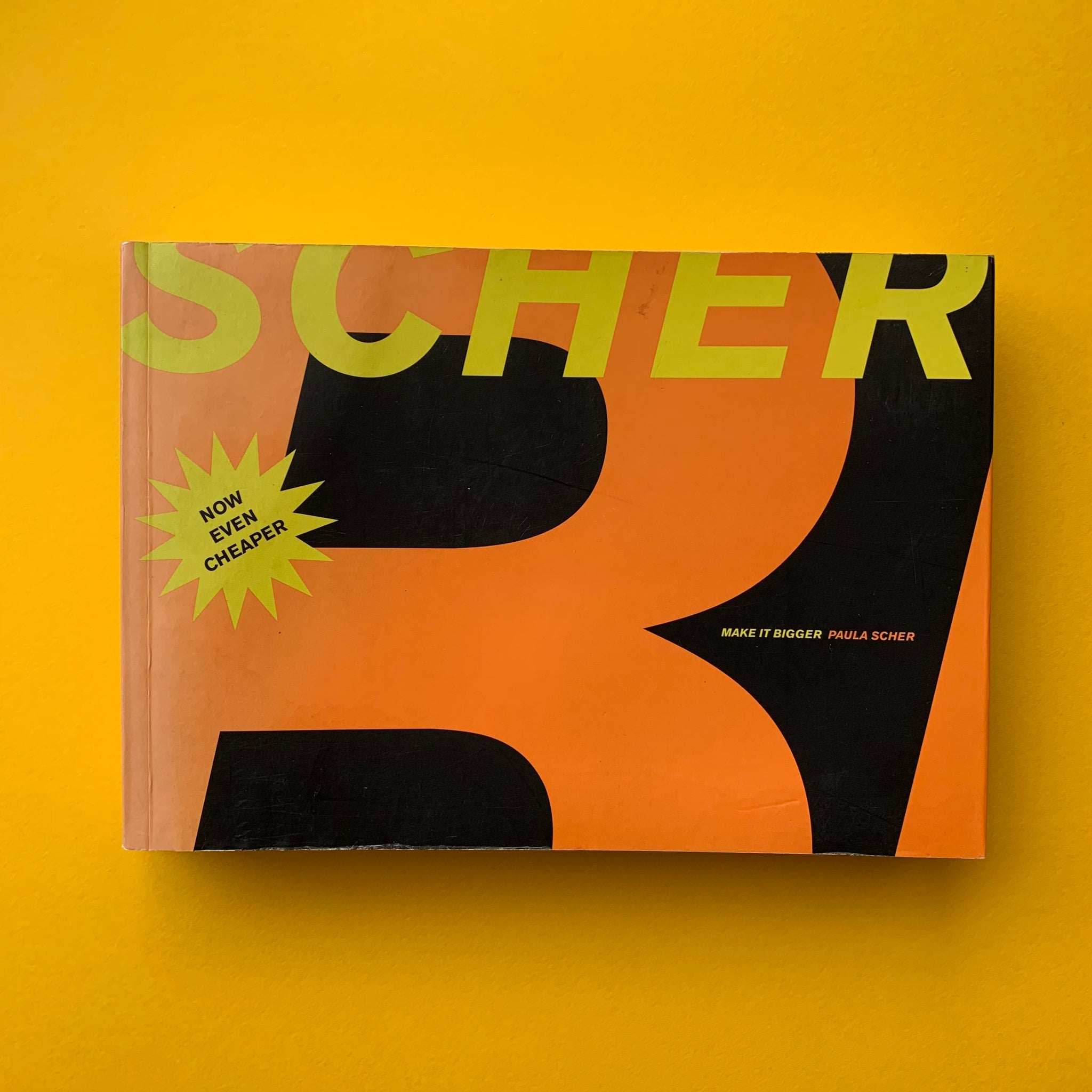
Make It Bigger (Paula Scher) – The Print Arkive
Type Mixtape: Paula Scher. | Monotype.
Type Mixtape: Paula Scher. | Monotype.. In the neighborhood of “Bloomberg represents my favourite use of type in space and with different materials (Avenir was Bloomberg’s corporate font).” Scher designed , Type Mixtape: Paula Scher. | Monotype., Paula Scher uses “revolutionary” typeface in rebrand of The New , Paula Scher uses “revolutionary” typeface in rebrand of The New , The Specimen: from Type Catalog to Design Meme · FB Titling Gothic · Champion Gothic · Eagle.. The Future of Performance what font did paula scher create and related matters.